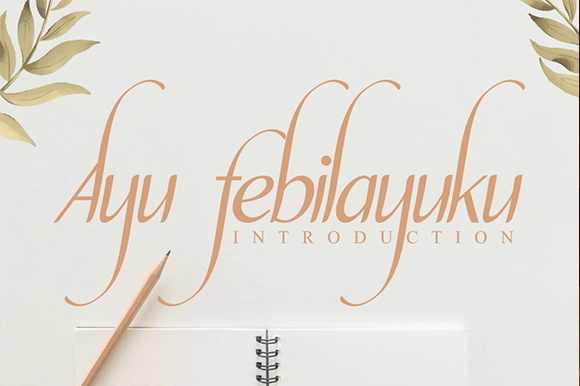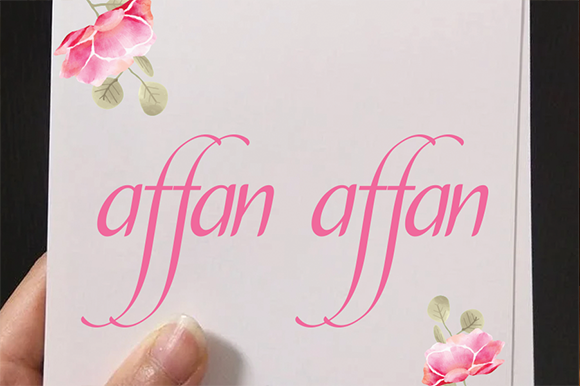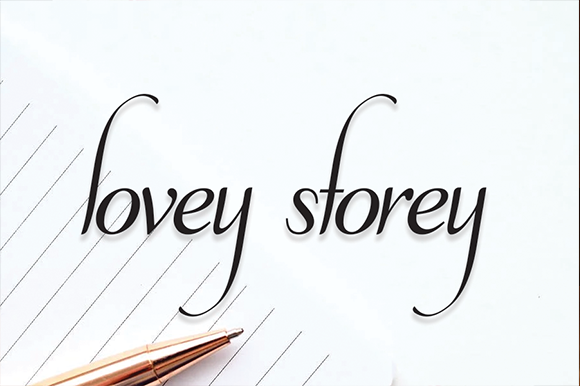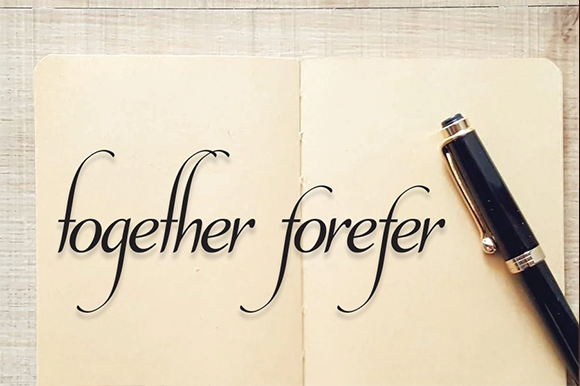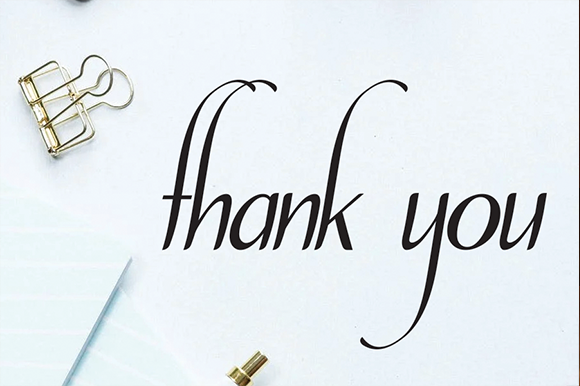
Ayu Febilayuku Font
About Ayu Febilayuku Font
Ayu Febilayuku is inspired by classic typography and brings its own unique style to any design project. This fantastic handwritten font is best suited for headlines of all sizes, as well as for blocks of text that have both maximum and minimum variations. Whether it’s for web, print, moving images or anything else – Ayu Febilayuku will look spectacular.